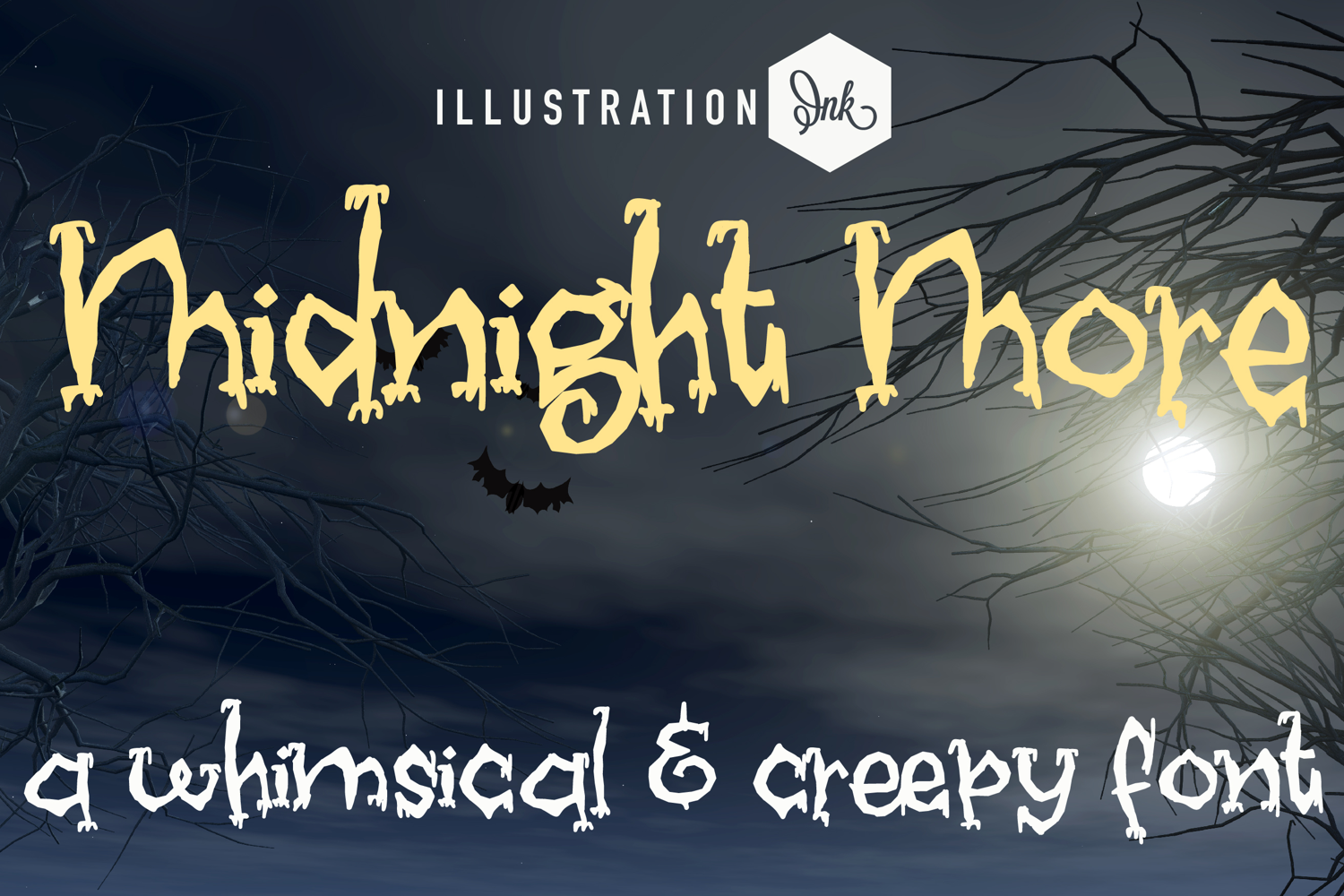
Midnight Font Family
This hand-crafted font is a crafty font with drippy, blood-like ooze.
• The letters are not perfectly uniform in size or shape.
• There may be slight variations in the spacing between letters and words.
• The font may have a "wiggly" or "squiggly" appearance.
• The font may be difficult to read at small sizes.